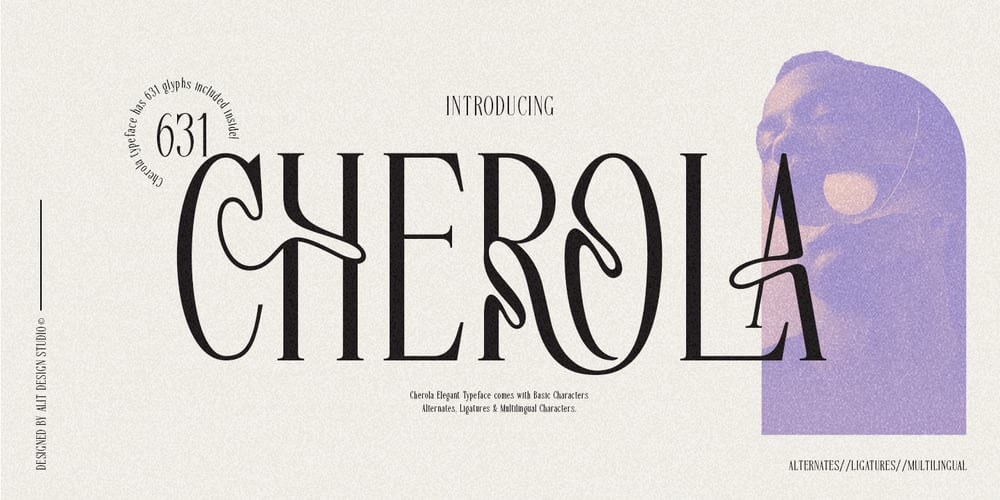
Cherola Font Family was designed by Alit Suarnegara and published by Alit Design. Cherola contains 1 styles and family package options. Cherola TypefaceDiscover the Art of Elegance with Cherola TypefaceIntroducing Cherola Typeface, a unique elegant serif font that combines sophistication with an artistic flair. Designed for those who appreciate the finer details, Cherola is perfect for adding a touch of luxury to your designs.Key Features: Elegant Serif Design: Cherola boasts a classic serif structure, exuding timeless elegance and refinement. Alternative Curves: Each character features meticulously crafted alternative curves, providing a dynamic and engaging look. Dynamic Swaying: The subtle swaying of characters creates a sense of movement, bringing your text to life in a graceful dance. Surprising Ligatures: Cherola includes a variety of ligatures that seamlessly connect letters, adding an unexpected and delightful twist to your typography. Why Choose Cherola?Cherola Typeface is ideal for high-end branding, editorial design, wedding invitations, and more. Its versatile nature ensures it can adapt to various design needs while maintaining a consistent look of sophistication.Usage Recommendations: Logos & Branding: Make a lasting impression with Cherola’s distinguished and memorable characters. Print & Digital Media: From magazine spreads to website headers, Cherola enhances readability and visual appeal. Special Occasions: Elevate your invitations and announcements with the elegant touch of Cherola. Embrace the beauty of curves, the elegance of serifs, and the surprise of ligatures with Cherola Typeface. Transform your design projects with a font that embodies grace and sophistication.Cherola Typeface – where elegance meets creativity.